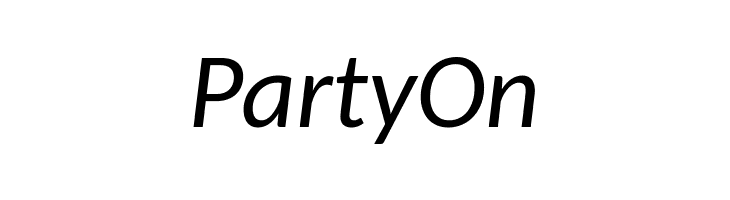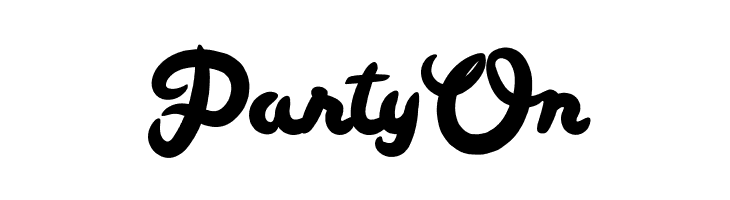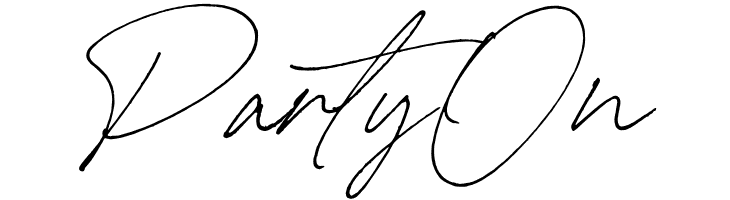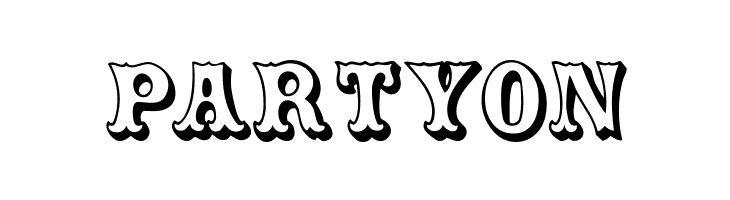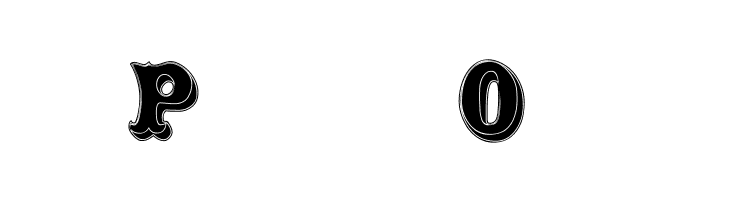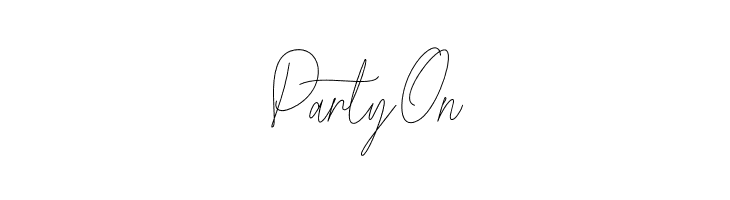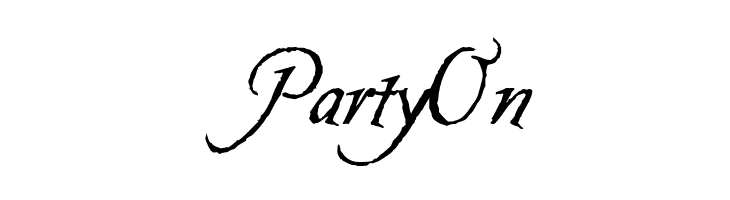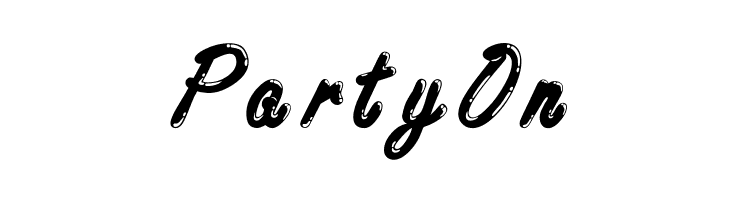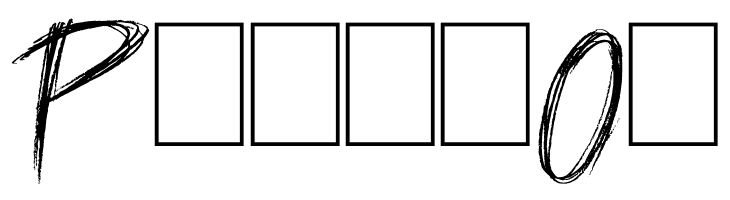
A modern sans-serif italic font with smooth curves and consistent stroke width.
A bold, expressive brush-style font with dynamic, hand-painted strokes.
A bold, flowing script font with elegant curves and loops.
A dynamic, brush-stroke style font with an energetic and expressive appearance.
A fluid and elegant script font with a cursive, handwritten style.
A bold, decorative font with a playful, vintage carnival theme.
A playful, bold font with an open shadow effect and vintage carnival style.
A graceful and elegant script font with flowing, connected characters.